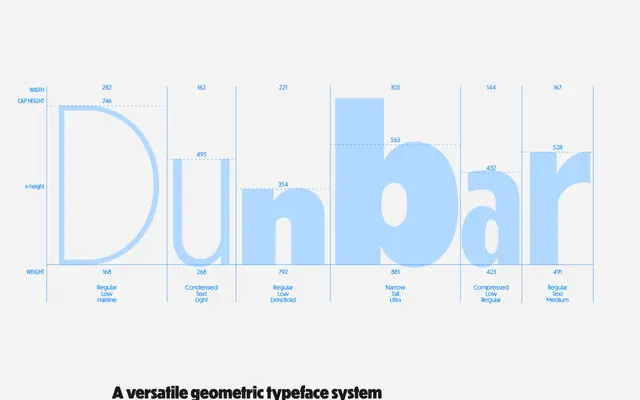
Dunbar
A geometric sans rooted in the Erbar-Grotesk tradition, built around a variable x-height axis that spans dramatically low to maximally tall proportions across three optical subfamilies.
Dunbar extends the geometric logic of Erbar-Grotesk into a contemporary system of three subfamilies: Dunbar Low, with its extreme low x-height for editorial and signage work; Dunbar Tall, built for density and impact in tight settings; and Dunbar Text, calibrated for smaller sizes. A variable font axis allows typographers to move fluidly between x-height extremes, while stylistic alternates, optically adjusted capitals and freshly added Cyrillic support extend the family's range without breaking its underlying geometry.
Dunbar is explicitly grounded in the geometric tradition of Erbar-Grotesk, with calligraphic moderation of strict mechanical construction, placing it firmly in the geometric sans category.